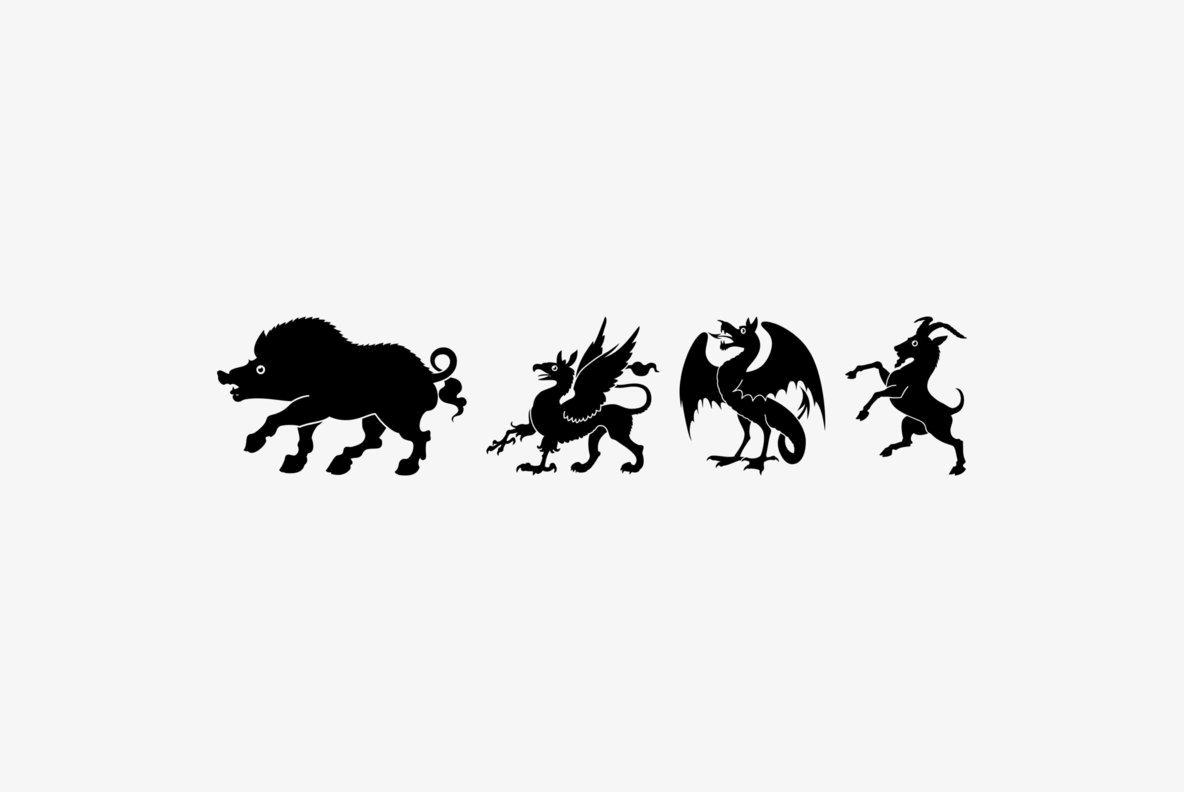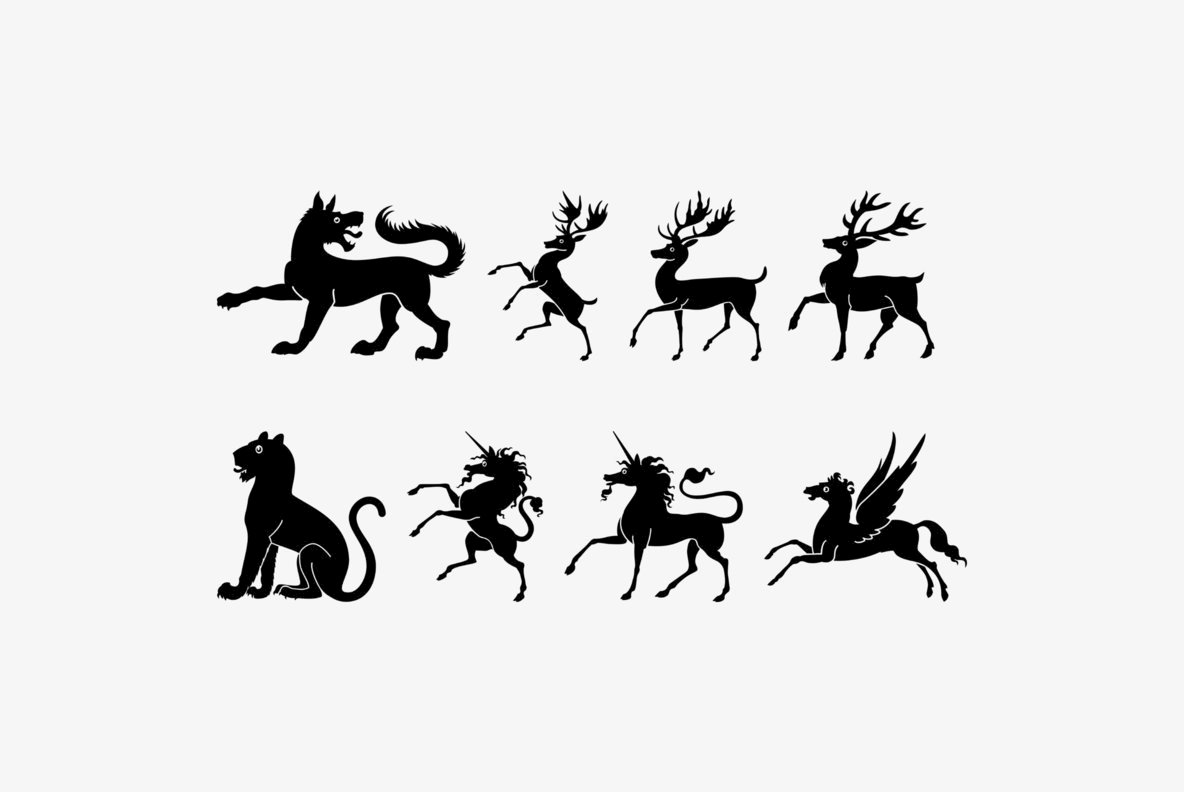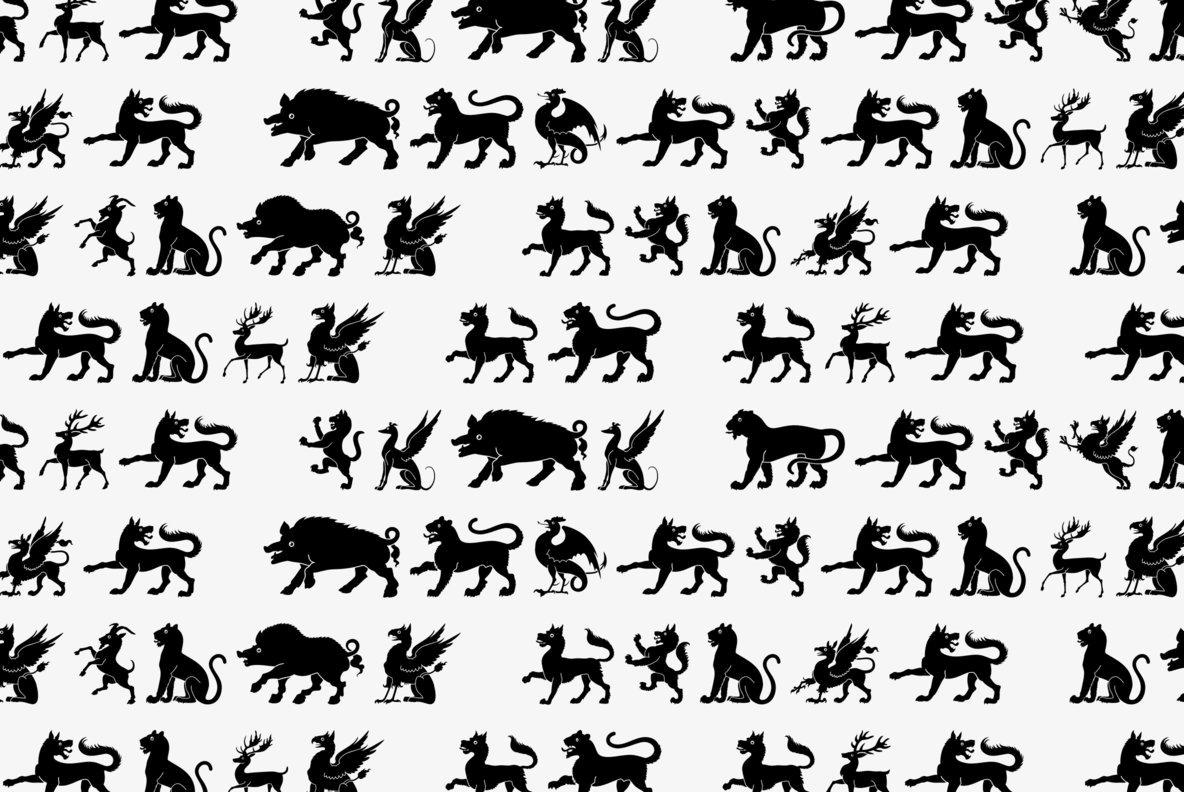
Heraldic Creatures Font
Heraldic Creatures
Many fabulous creatures were created for use on heraldic crests. The Heraldic Creatures font is an assortment of simplified renderings of some of these creatures.
There is a total of 47 creatures all located under the normal character keys.